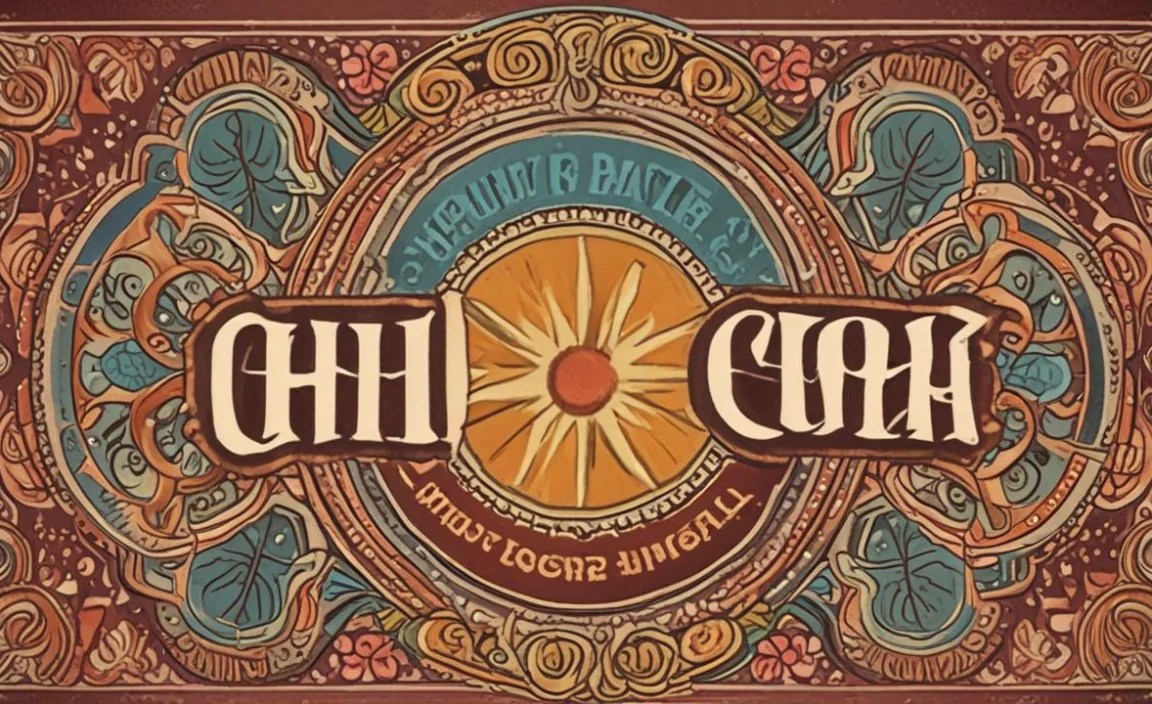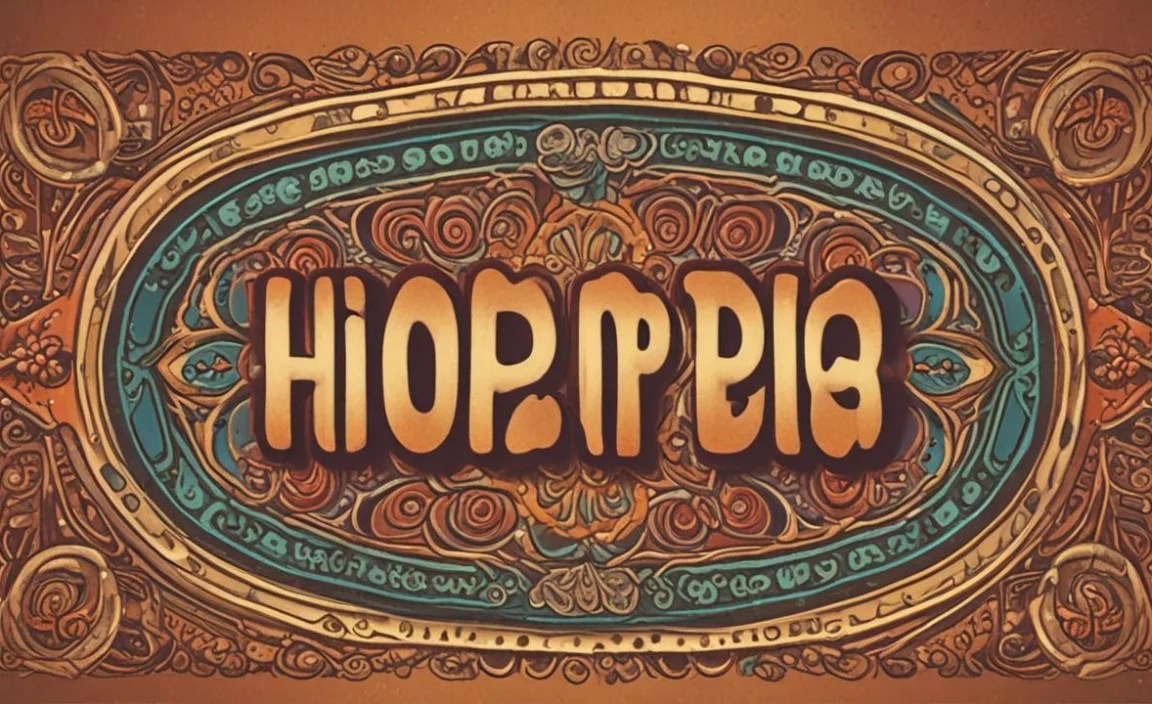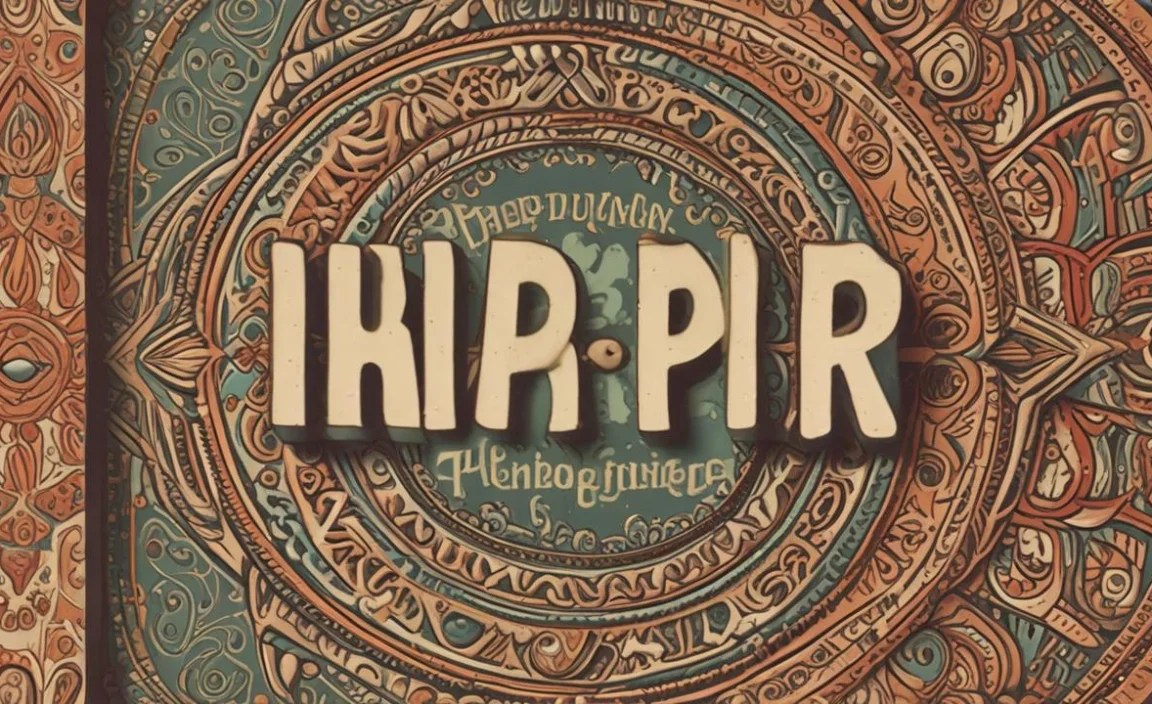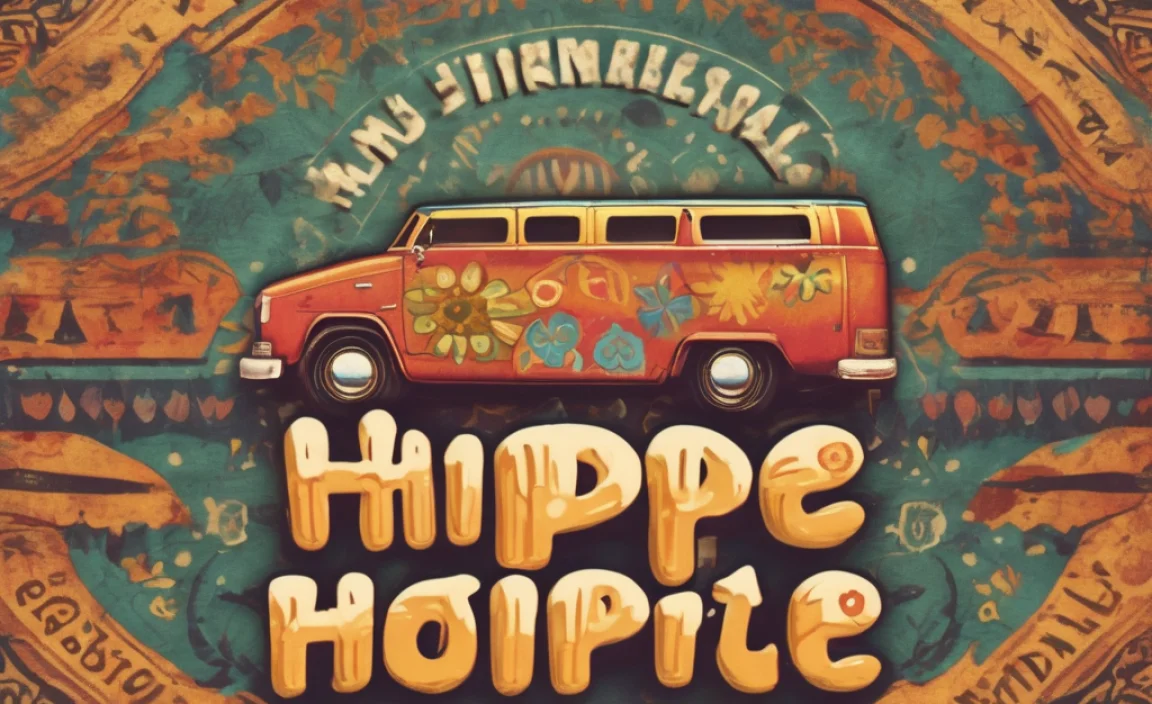
Hippie fonts bring the vibrant, free-spirited energy of the 60s and 70s into modern design. With their bold, playful shapes and retro charm, these fonts are perfect for projects that need a touch of nostalgia, from branding and posters to typography art.
These fonts evoke the spirit of the hippie movement and psychedelic era and add personality and flair to any creative endeavour. Whether you’re crafting a groovy logo or a vintage design, hippie fonts help bring a bold, retro feel to your work.
Key Features Of Hippie Fonts
Hippie fonts stand out for several reasons. Let’s break down the key characteristics that make them so versatile and iconic:
- Bold & Playful Designs:
With their bold font shapes, exaggerated curves, and funky forms, hippie fonts draw attention. These fonts are perfect for making a bold statement in any design, whether it’s a poster or branding. - Abstract Groovy Shapes:
Many hippie fonts feature abstract, groovy styles that evoke the era’s unique shapes and free-flowing patterns. - Stylistic Alternates:
Hippie fonts often come with stylistic alternates, giving you more design flexibility. You can switch up the letterforms or add extra flourishes to achieve a more dynamic look. - Retro & Vintage Charm:
A hippie font can instantly infuse a design with retro charm. Whether it’s for a psychedelic era project or a groovy hippie font look, these fonts add that nostalgic touch you can’t get from other design styles. - Multilingual Support:
Many groovy fonts come with multilingual support, ensuring your typography works across different languages, especially for international or multicultural designs.
Best Use Cases for Hippie Fonts
Hippie fonts can transform your creative projects, whether it’s for personal or commercial use. Here’s where these fonts shine the brightest:
- Logo Design: Use a hippie font for logos that need a unique and nostalgic touch.
- Branding: Perfect for brands aiming to evoke a sense of freedom, creativity, or retro vibes.
- Posters: Whether it’s a vintage poster or a design from the psychedelic era, these fonts make any project stand out.
- Creative Projects: Hippie fonts bring retro charm to wedding invitations, t-shirt designs, and DIY projects.
- Typography Art: Hippie fonts are ideal for creating groovy typography or abstract designs that evoke nostalgia.
Why Choose Hippie Fonts for Your Design Projects?
If you’re looking for bold fonts that stand out, groovy hippie fonts are perfect. Here’s why they should be in your design toolkit:
- Nostalgia & Retro Appeal: These fonts are directly linked to the hippie era and psychedelic era, evoking nostalgia and a sense of the past.
- Bold Typography: Hippie fonts give you the ability to make a bold statement in any project.
- Versatility: These fonts are flexible enough for all your design needs, from branding and logos to lettering and posters.
- Creative Freedom: The stylistic alternates and multilingual support allow you to get creative and adapt these fonts to different styles and languages.
Whether you’re crafting a hippie unicorn logo or working on a poster, these fonts can help you create the perfect, bold, and groovy typography for your project.
Do Hippie Fonts Come With Multilingual Support?
Yes, many groovy hippie fonts offer multilingual support so that you can use them for global projects.
Can I Customize Hippie Fonts For My Project?
Absolutely! Many hippie fonts come with stylistic alternates and additional characters, allowing you to customize the typography to suit your design.